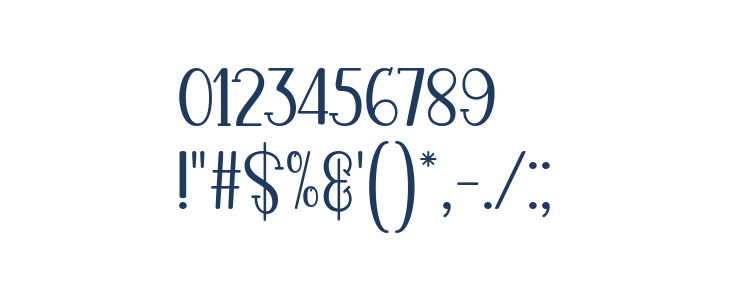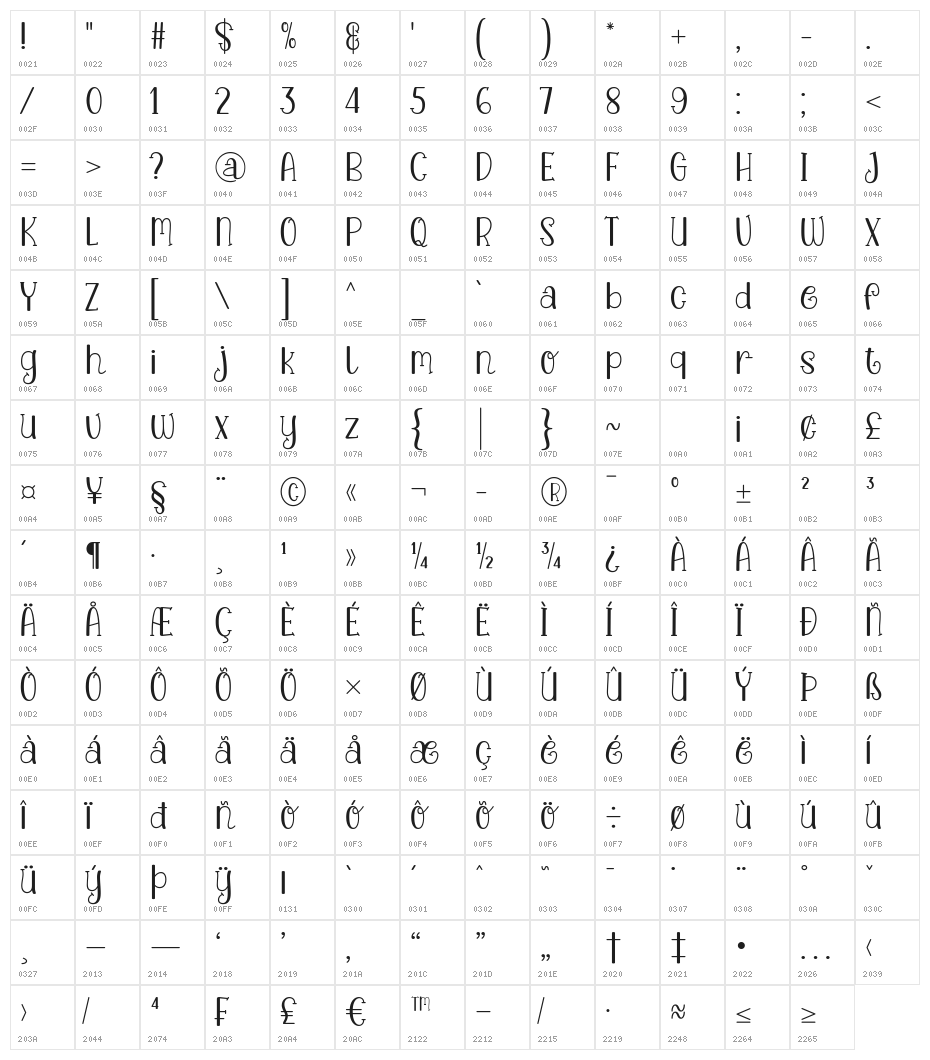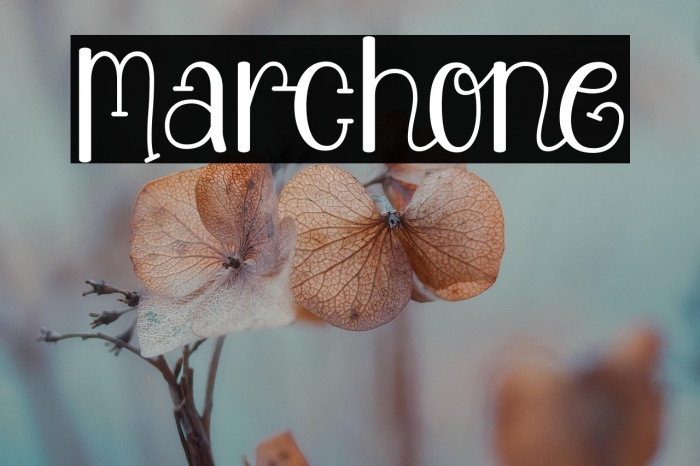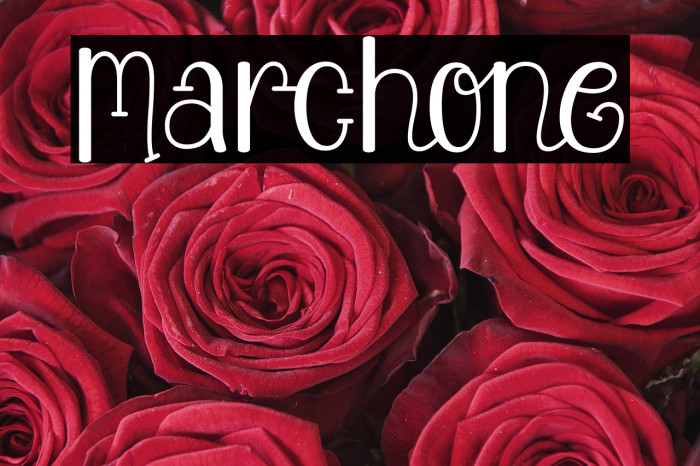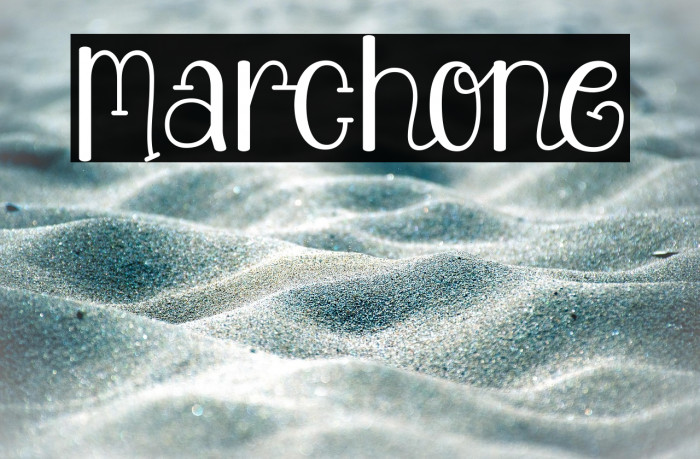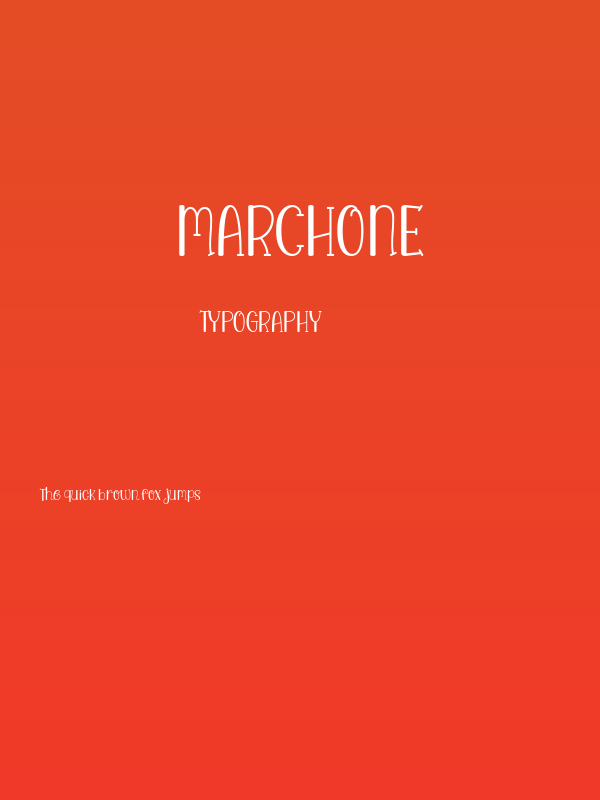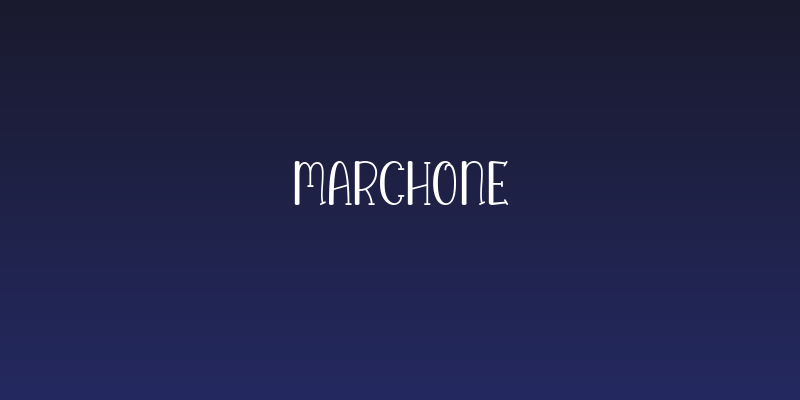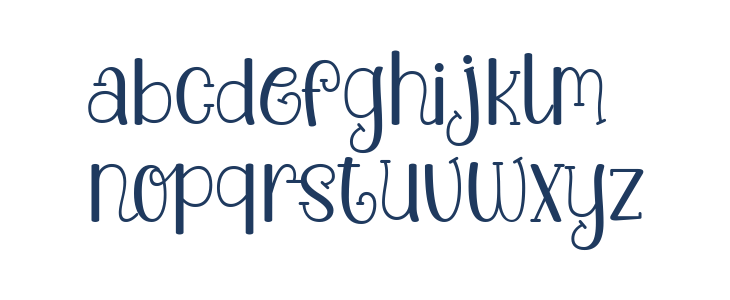
Marchone Font
Marchone Description
This font features a playful and whimsical design, characterized by its tall, narrow letters with a slight curl at the ends. The uppercase letters are bold and prominent, while the lowercase letters maintain a consistent flow with subtle variations in stroke width. The numbers are clear and easy to read, matching the overall style of the alphabet. Special characters are creatively integrated, adding to the font's unique charm. This font's distinctive style makes it suitable for projects that require a touch of fun and creativity.
| Width | Condensed |
| Overall Style | Whimsical, Playful |
| Proposed Projects | Ideal for children's books, playful branding, greeting cards, and creative posters. |